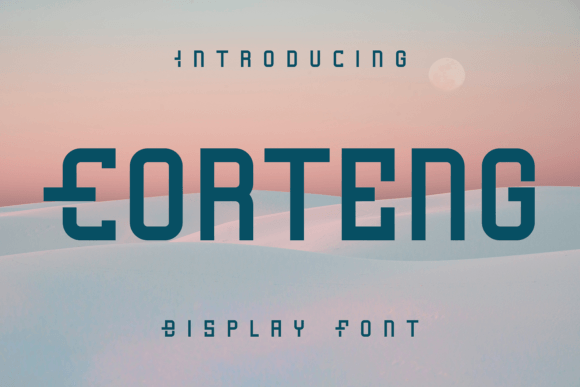
Immerse yourself in the world of Corteng, a display font family that ignites the creative spirit. This masterpiece, crafted by the adept hands of lelevien, stands as a testament to the transformative power of typography. With its intrinsic ability to redefine the visual landscape, Corteng is poised to elevate your designs.
Corteng is more than just a font; it's an artistic expression that weaves a captivating narrative. Its bold and distinct letterforms exude a sense of confidence and style, daring you to think outside the box and embrace your creativity. Whether you're a seasoned designer or just starting your artistic journey, Corteng will become your trusted companion, guiding you towards design excellence.
As you explore the vast potential of Corteng, you'll find a font family that is as versatile as it is beautiful. Its striking presence commands attention in logos and branding, while its elegant curves lend a touch of sophistication to invitations and posters. Unleash your imagination and watch as Corteng transforms mundane text into captivating headlines, inspiring call-to-actions, and captivating social media posts.
One of the most remarkable qualities of Corteng is its ability to effortlessly elevate any design project. Its carefully crafted glyphs possess an inherent ability to enhance the visual impact of your work, leaving a lasting impression on your audience. With Corteng as your font of choice, you can create designs that resonate, designs that captivate, and designs that leave an indelible mark.
So, embark on this creative adventure with Corteng, a display font family that's destined to become an indispensable asset in your font library. Its unique character and boundless potential will inspire you to push creative boundaries and produce breathtaking designs that speak volumes.